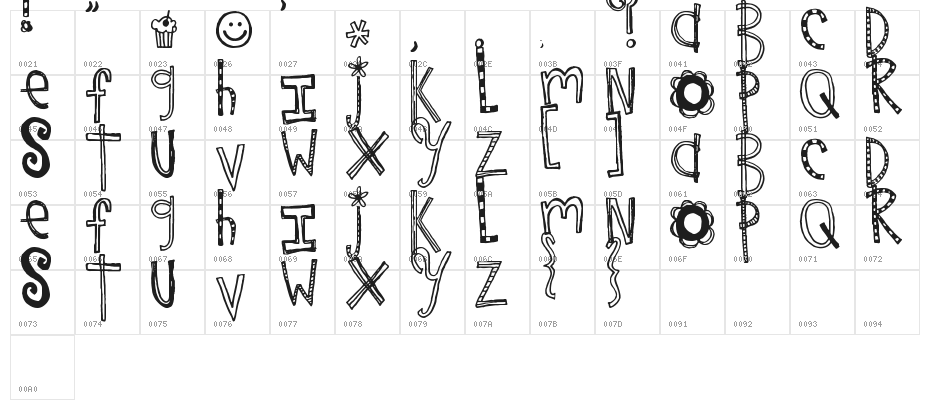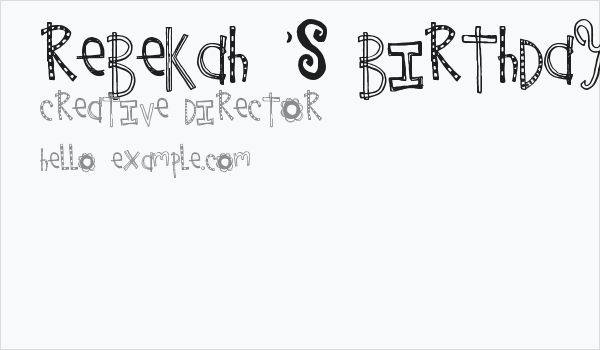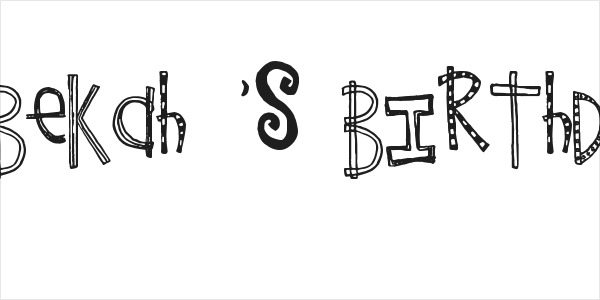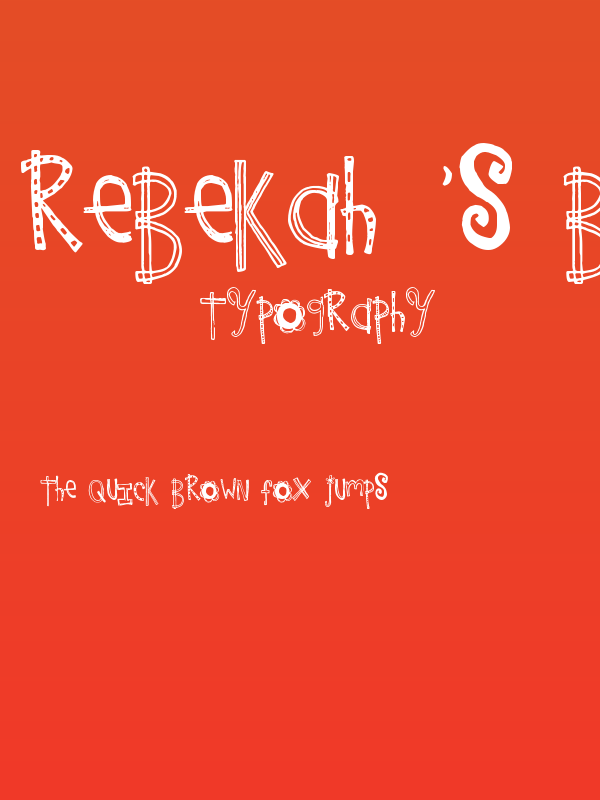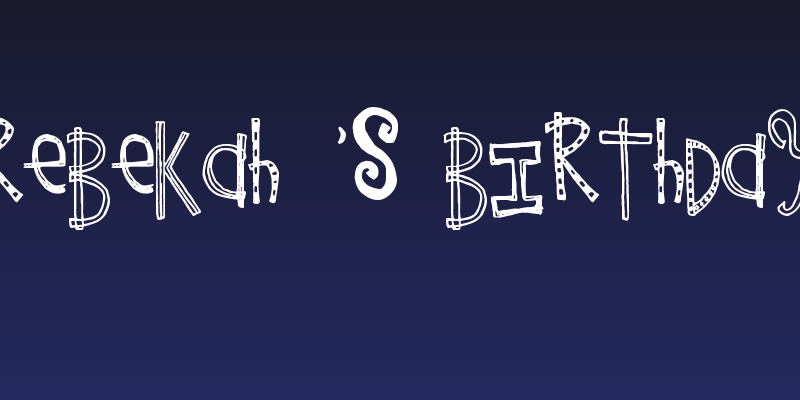
Rebekah's Birthday Font
Rebekah's Birthday Description
This playful and whimsical font features a variety of decorative elements that make each character unique. The uppercase and lowercase letters are adorned with patterns such as stripes, dots, and floral motifs, adding a fun and lively touch. The font includes a mix of bold and thin strokes, creating a dynamic and engaging appearance. Special characters like exclamation marks and a cupcake icon further enhance its playful nature. This font is ideal for projects that require a cheerful and informal style, perfect for children's parties, playful invitations, or creative branding.
| Use Case | Headlines, Invitations, Creative Branding |
| Proposed Projects | Ideal for children's party invitations, playful branding, and creative projects. |